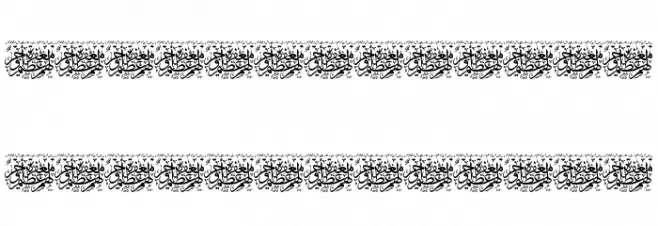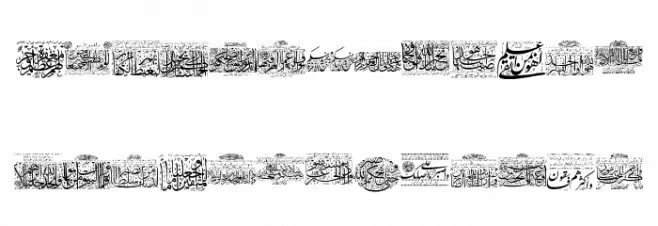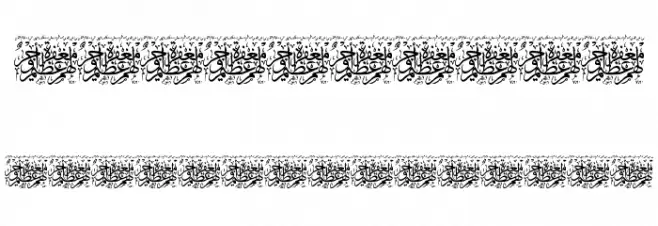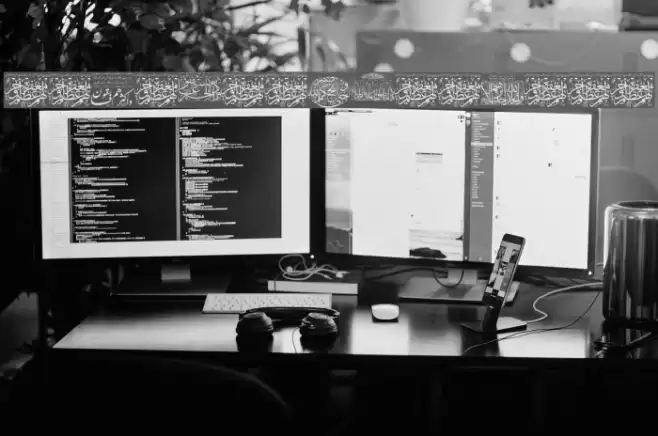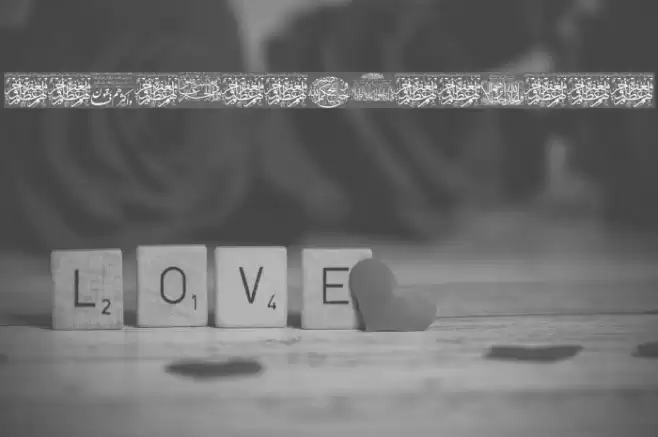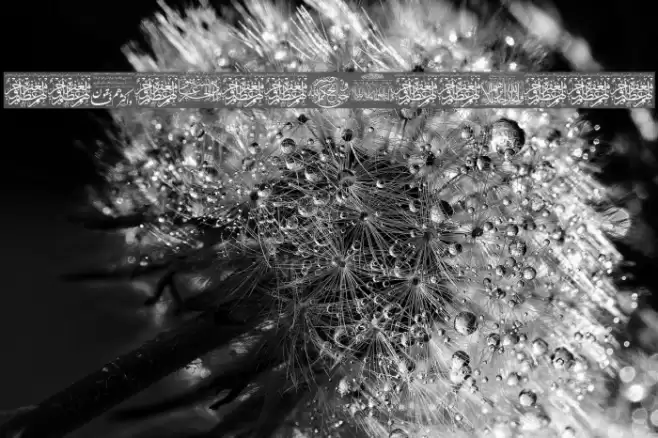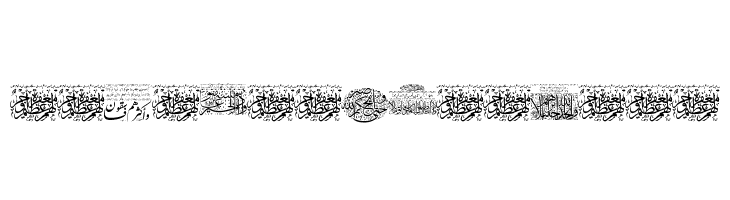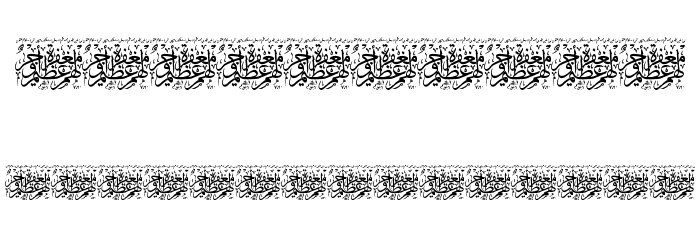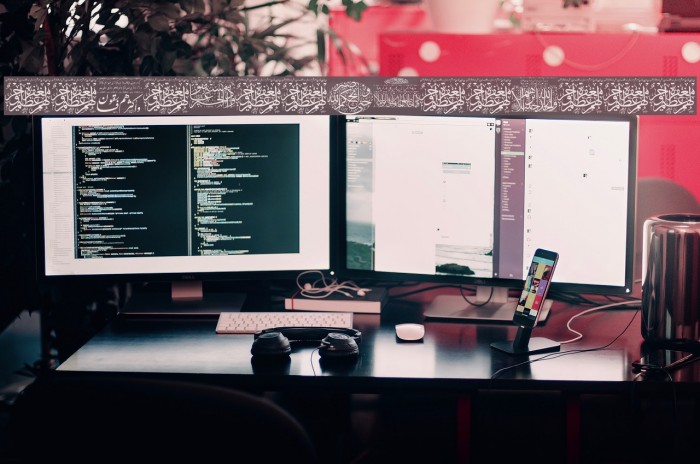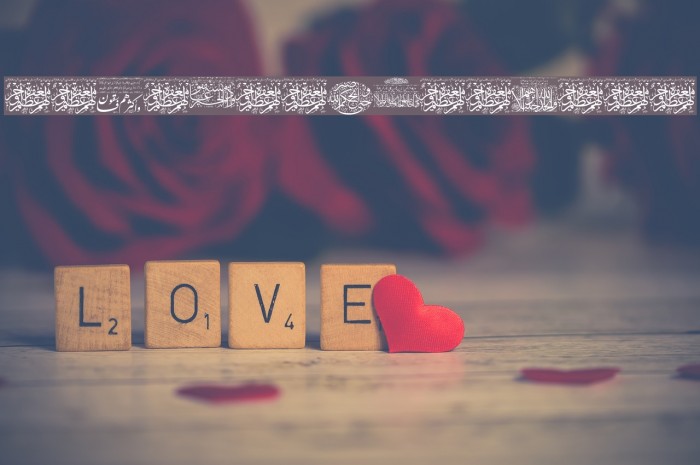
Aayat Quraan 29
Highly ornate Arabic script with intricate detailing, featuring dense calligraphic forms and decorative flourishes, commonly used in religious or ceremonial contexts.
Ornate Arabic calligraphy with complex, decorative styling.
- Proposed Projects: Religious texts, ceremonial documents, decorative art, Quranic manuscripts.
- Character Spacing: Tight
- Contrast: High
- Overall Style: Decorative, Traditional, Religious
- Use Case: Religious manuscripts, decorative borders, ceremonial headings.